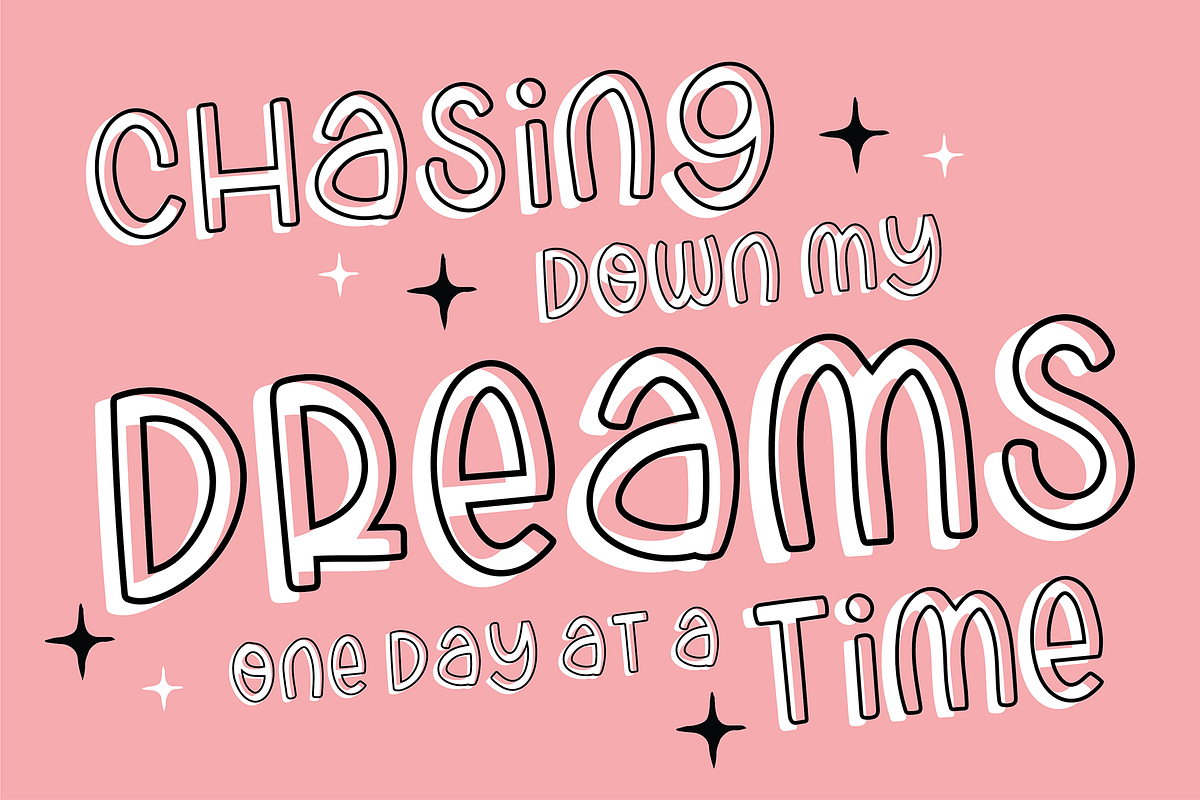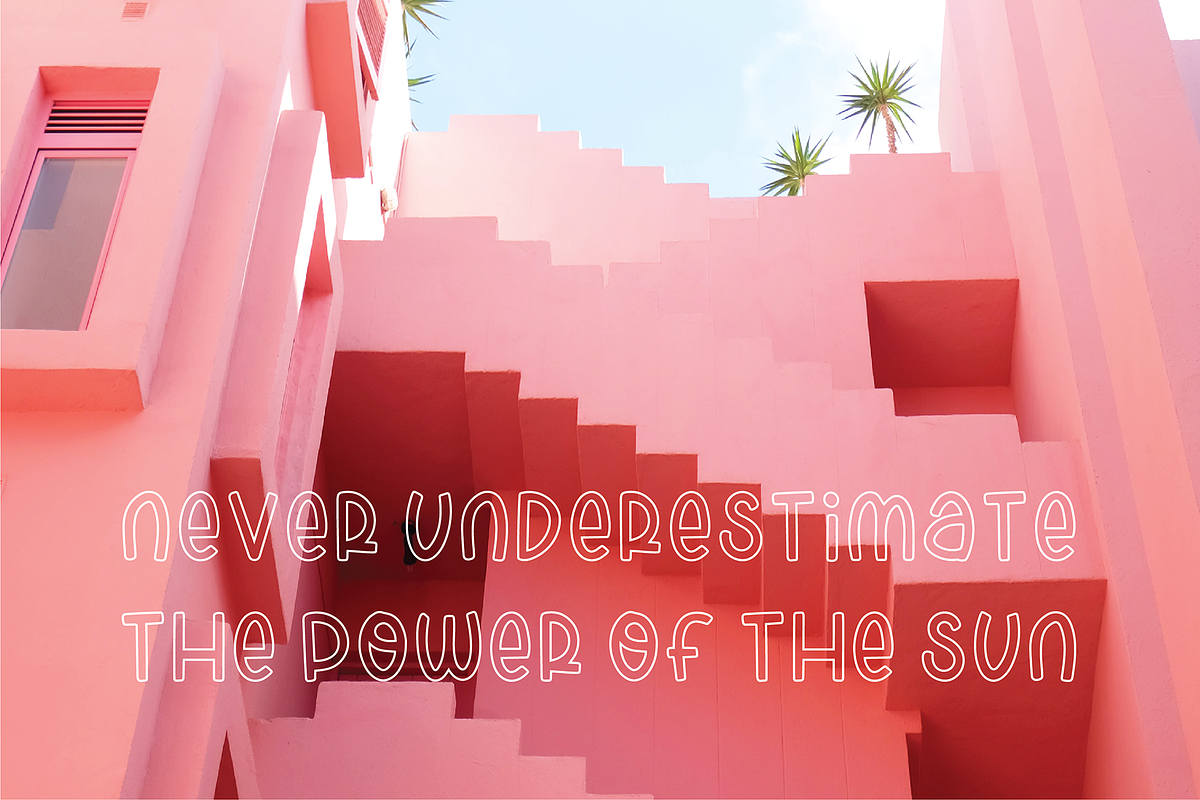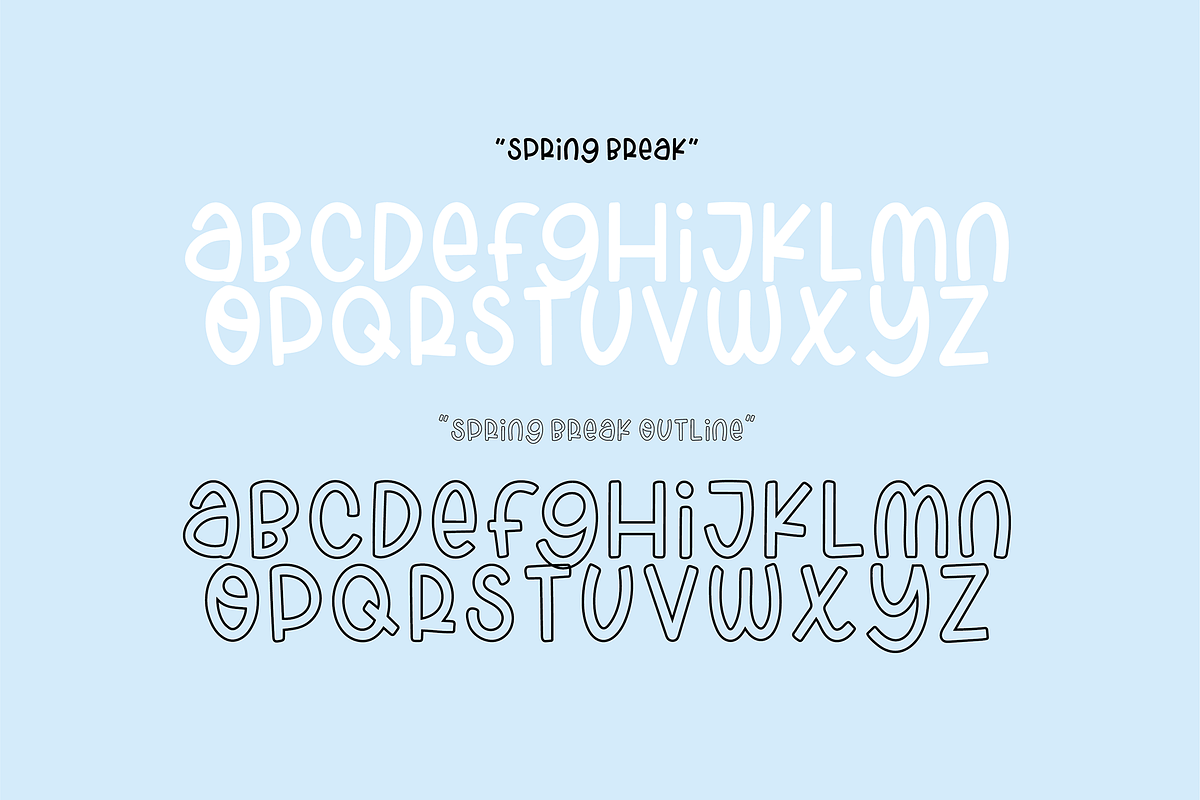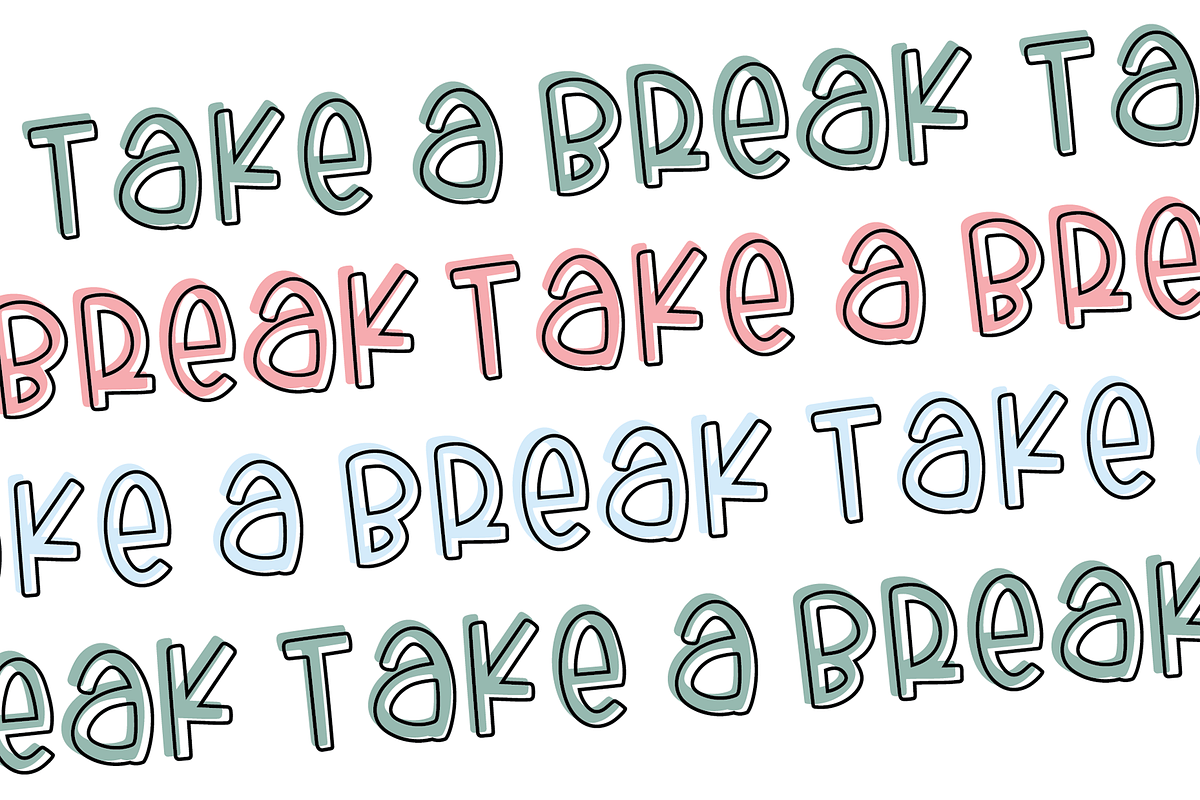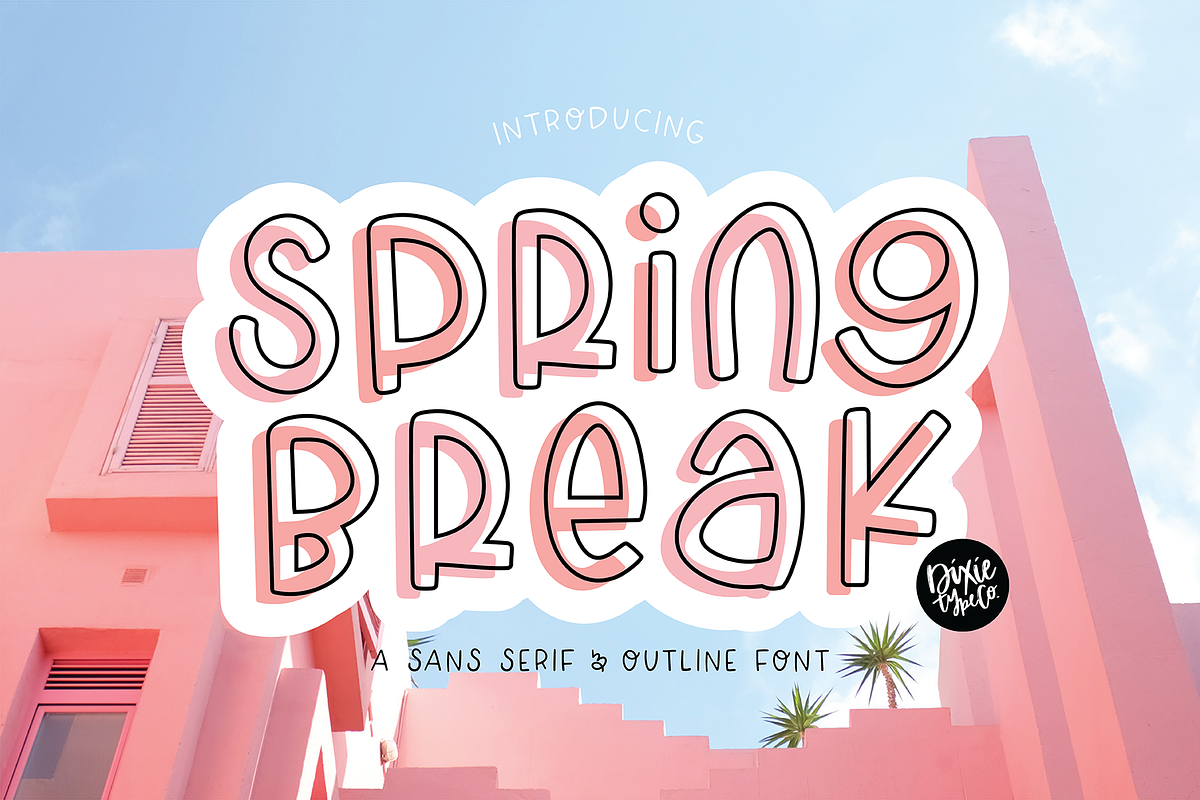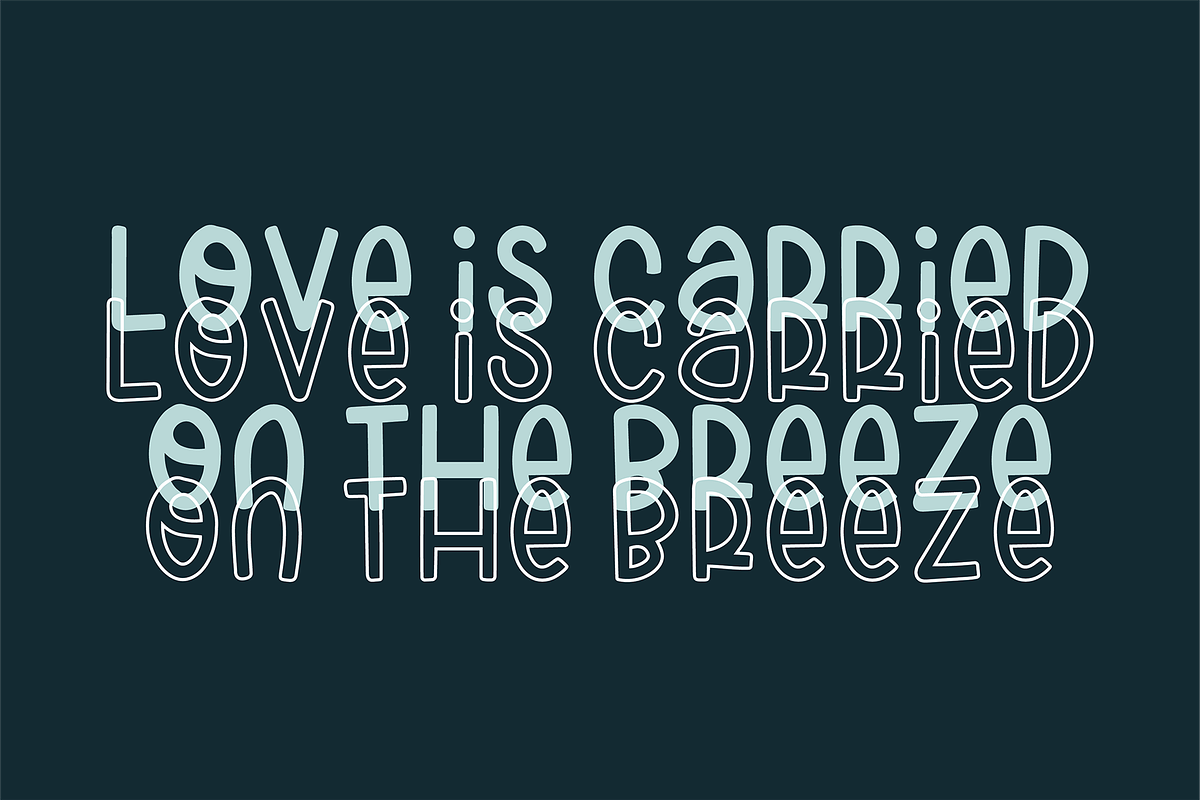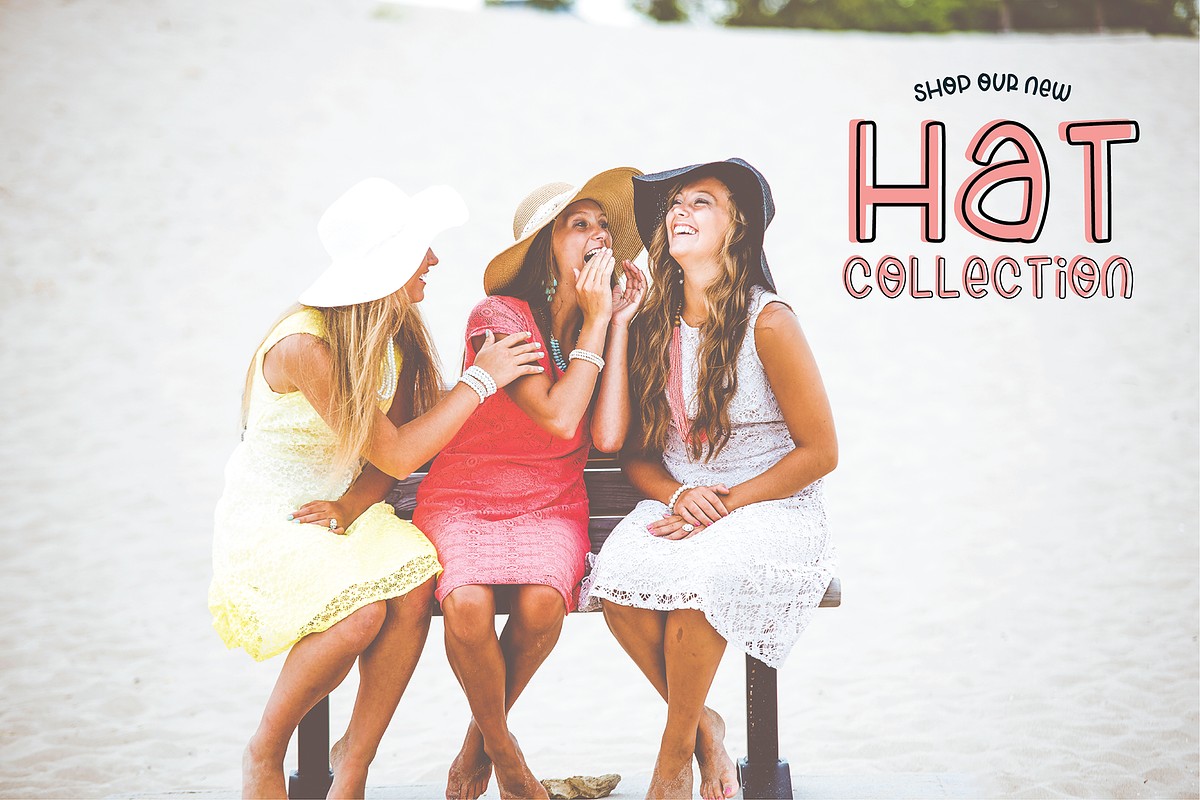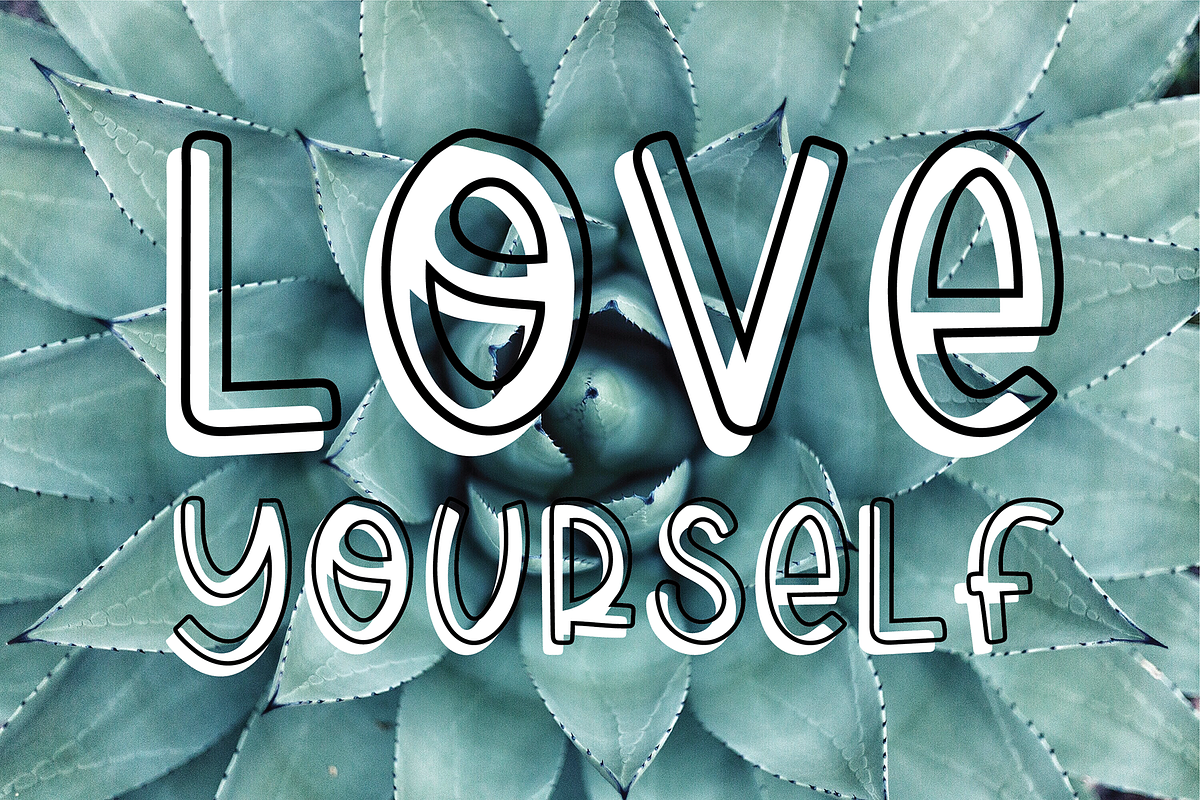
SPRING BREAK Sans Serif Outline Duo
"Spring Break" hand lettered installable font. { A typographic font hand lettered with love by Dixie Type Co. }
"Spring Break" is a fun font duo. It includes a sans serif font and a matching outline font. This works great as display or monogram text. Use it for party invitations, advertisements, IG posts, logos, etc.! Layer the two fonts to create the unique look pictured. This font has a lot of personality and is sure to spice up your projects!
Both fonts include: All caps characters (upper and lowercase characters are the same), basic punctuation, and numbers.
- It includes a sans serif font and a matching outline font.
- Both fonts include: All caps characters (upper and lowercase characters are the same), basic punctuation, and numbers.